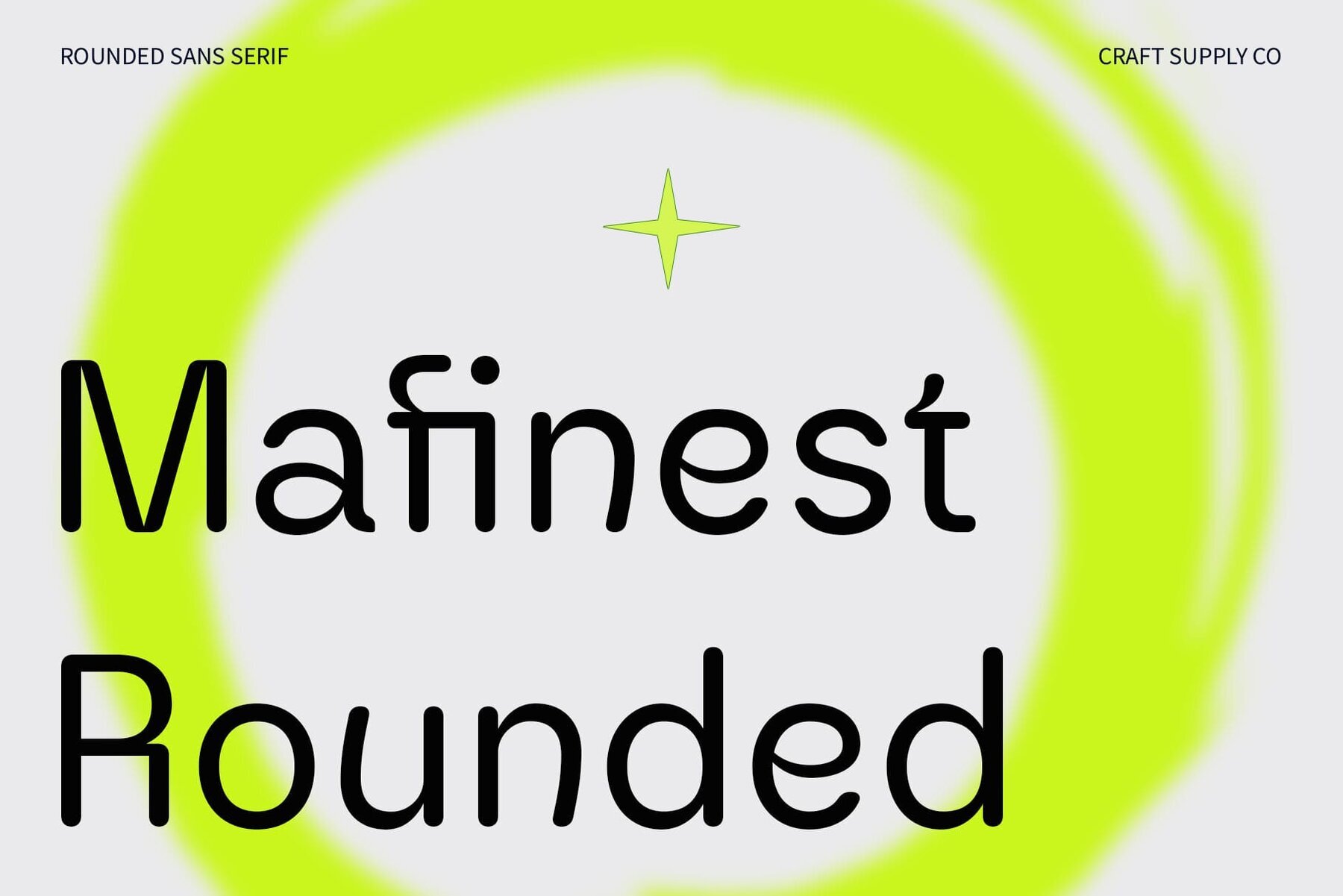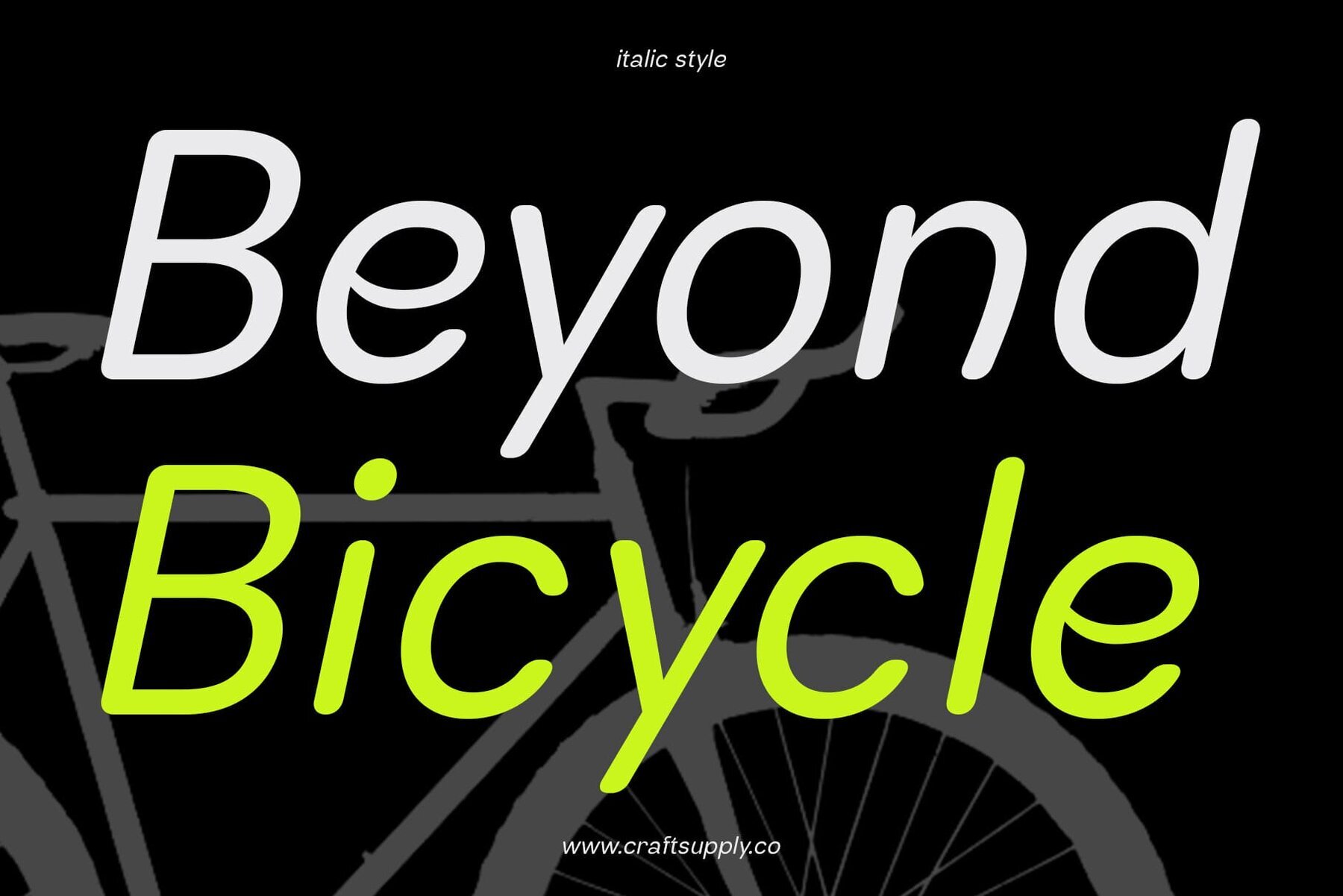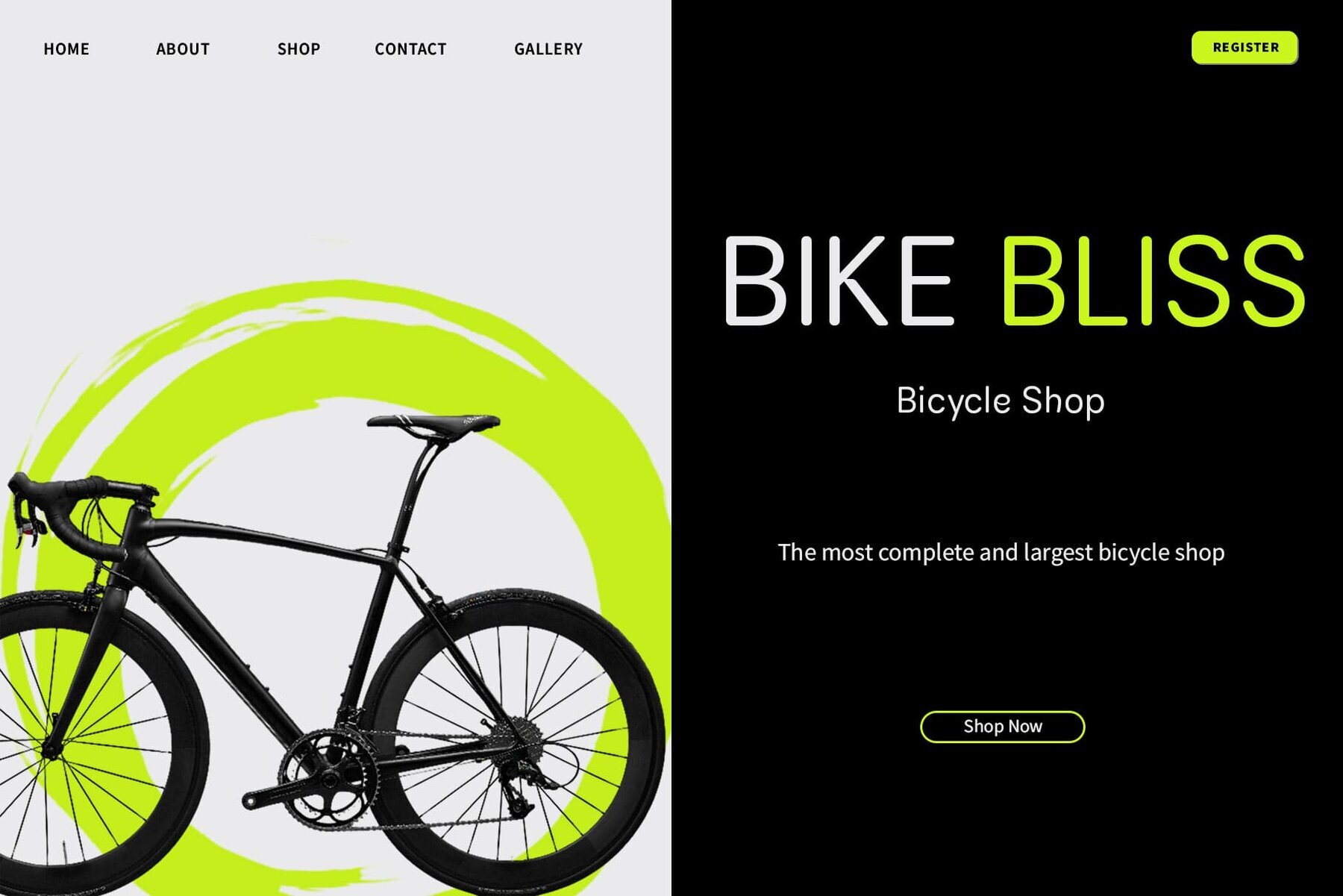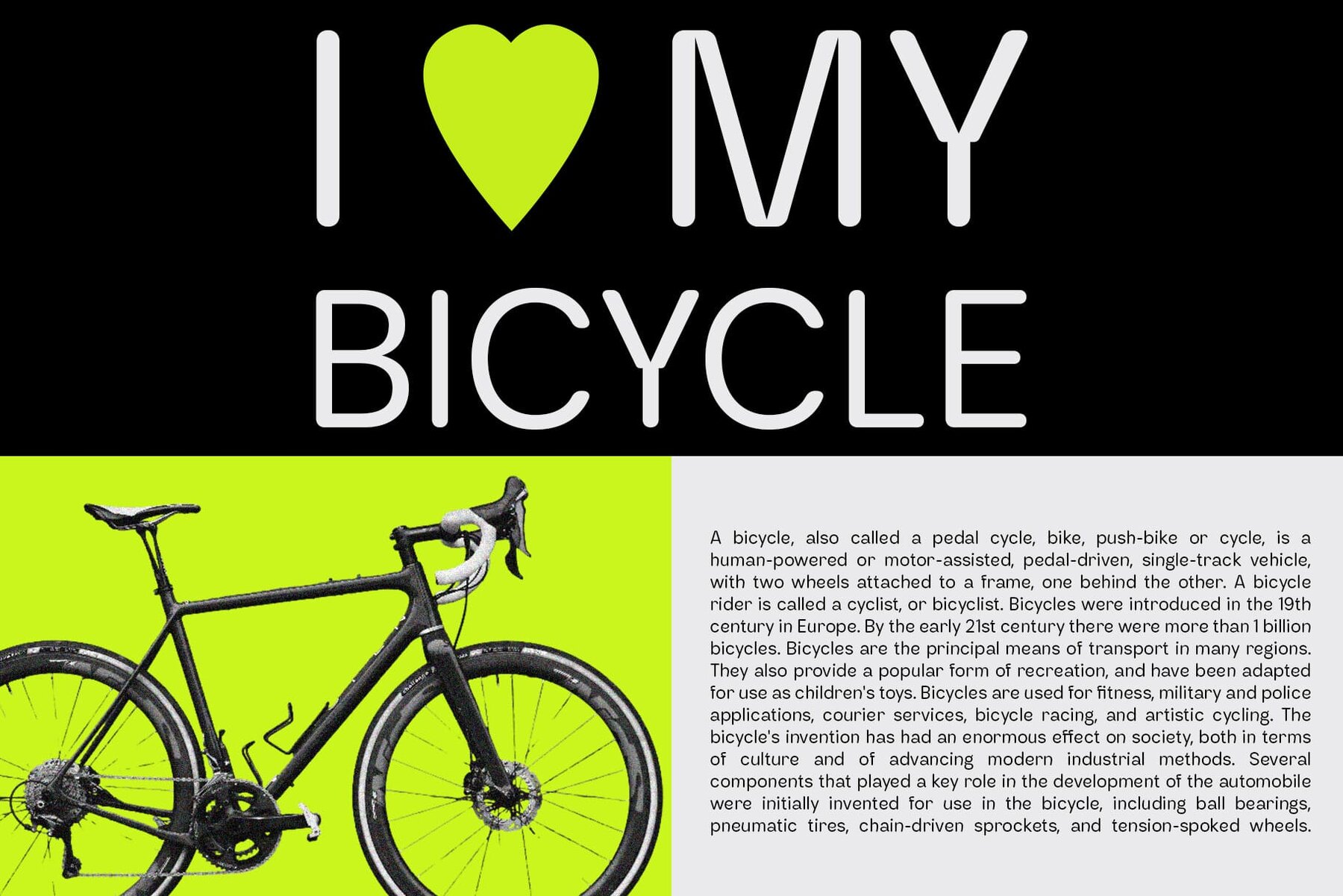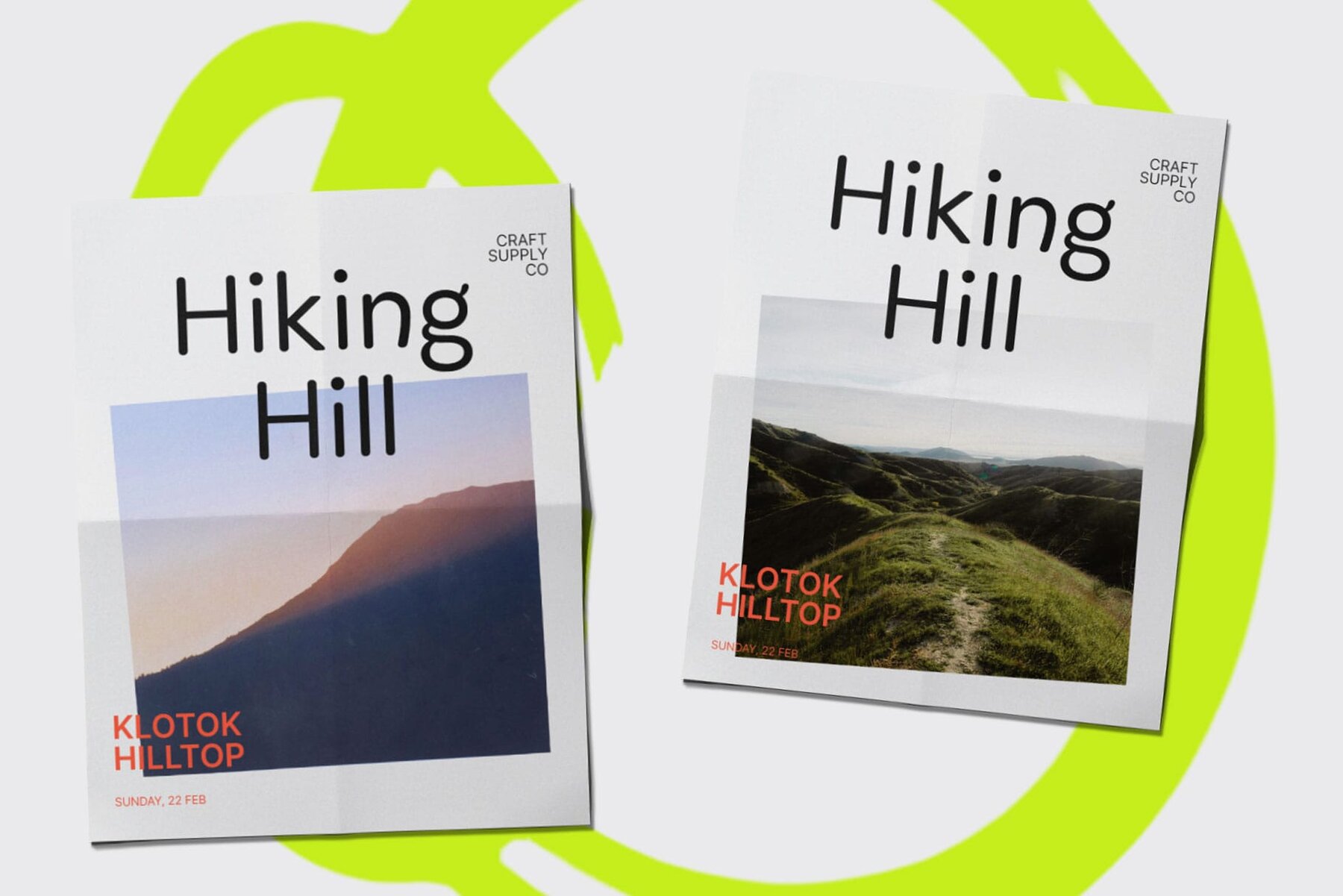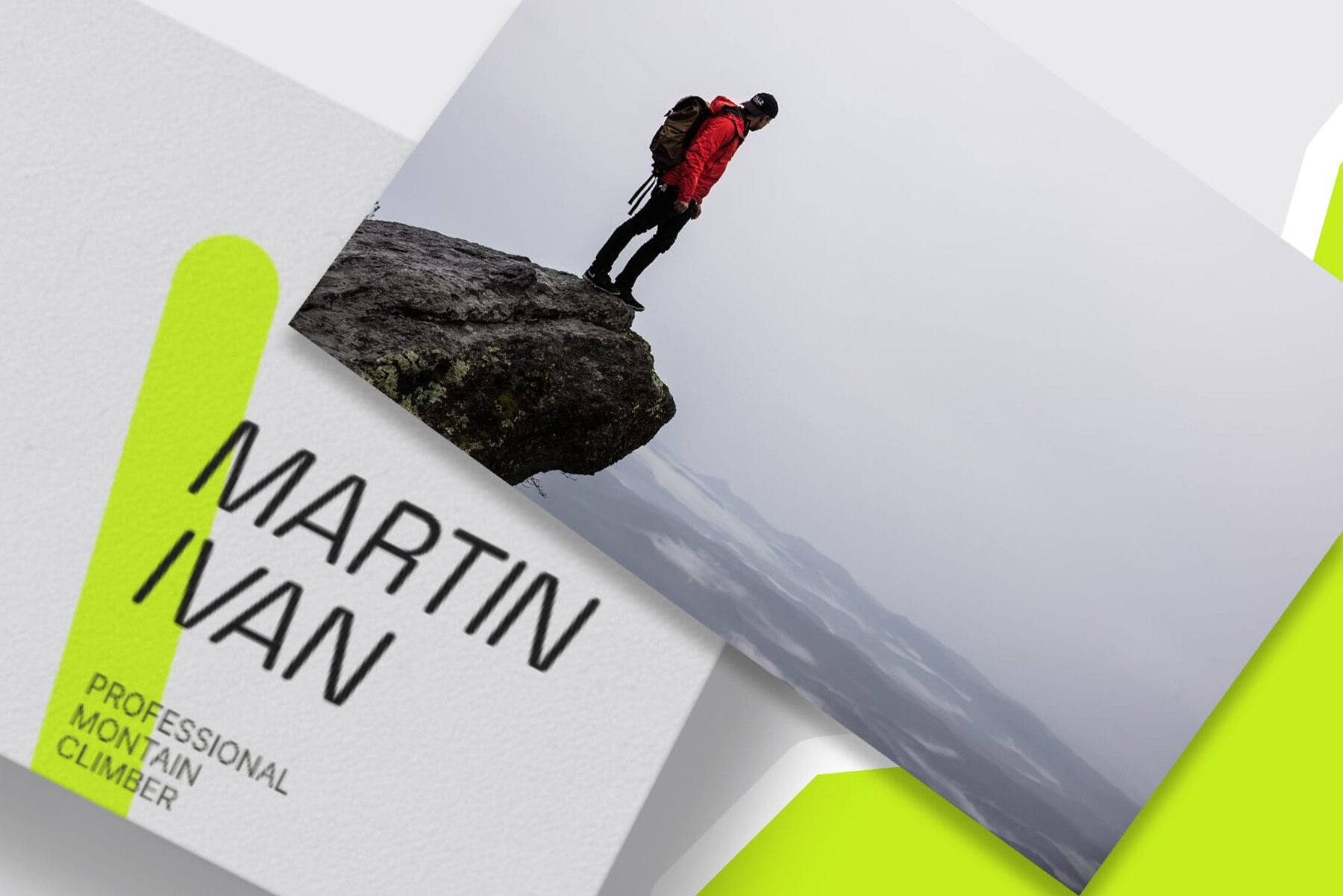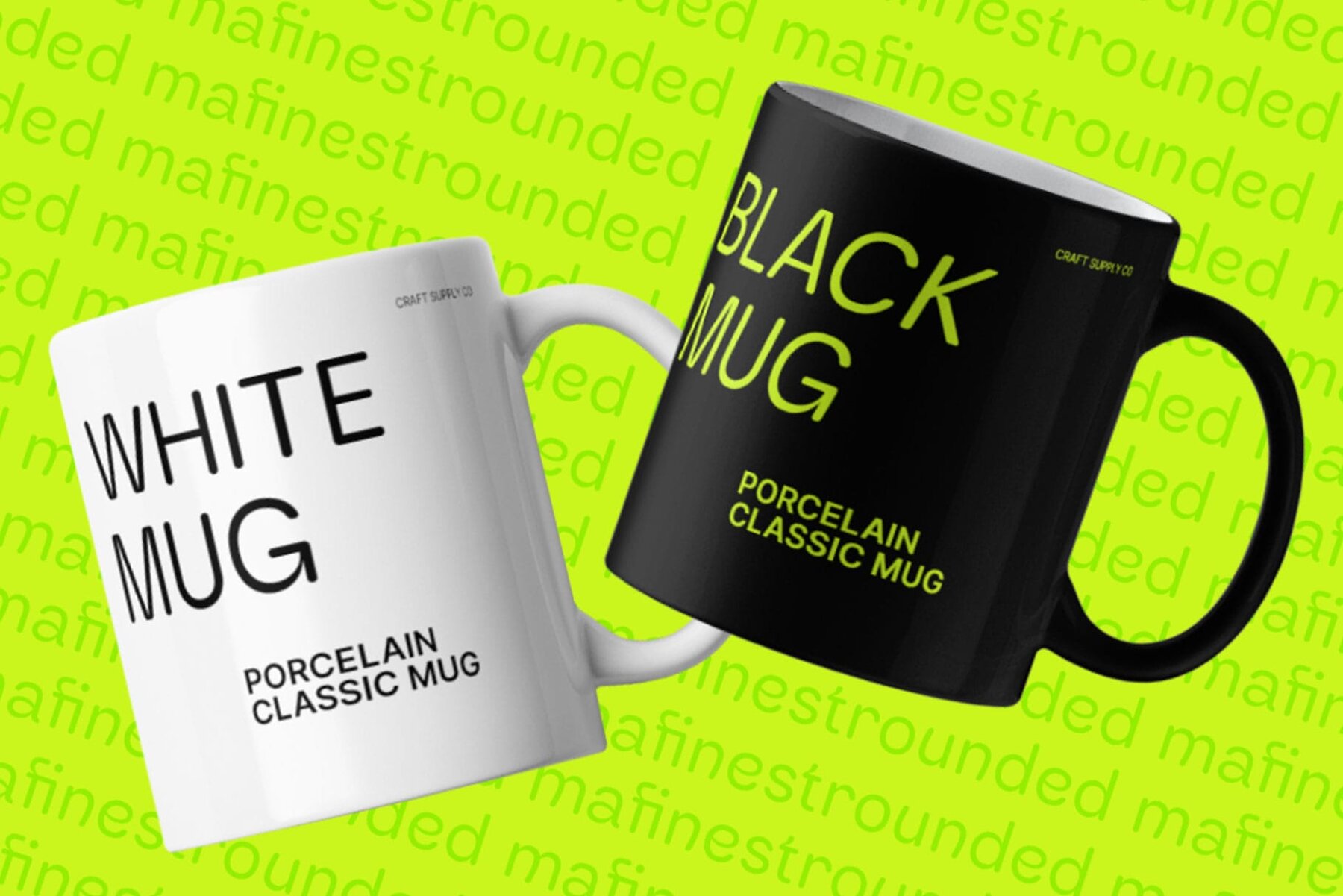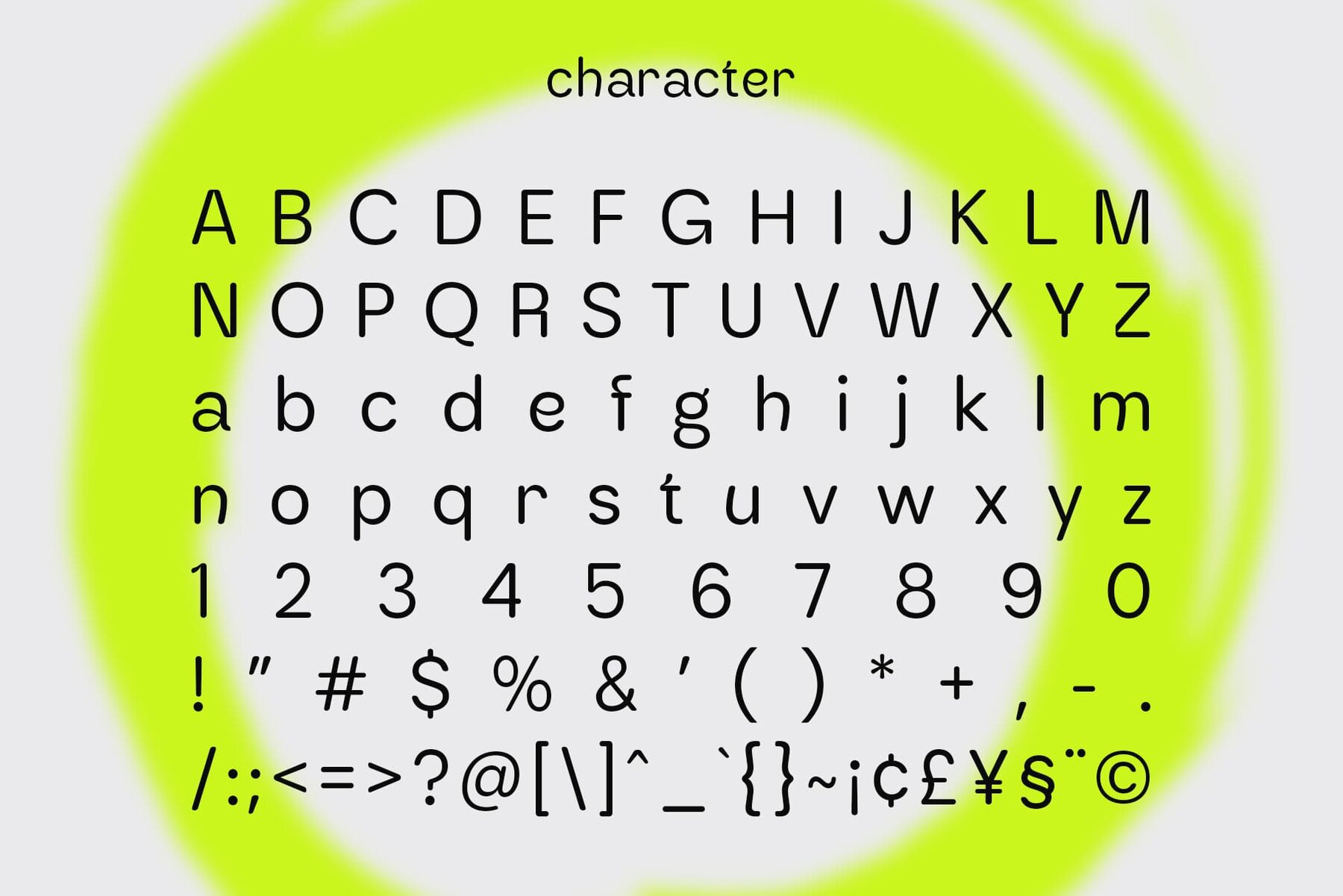
Mafinest Rounded Font
Mafinest Rounded encapsulates the essence of minimalist design with its low-contrast sans serif style. The subtle variation in stroke weight ensures a clean and understated aesthetic. This font's subtle contrast and minimalist design create maximum impact, making it suitable for a wide range of applications, from web design to branding and editorial layouts. Featuring rounded stem endings, Mafinest Rounded exudes a gentle and approachable vibe. These softened edges add a touch of warmth and friendliness to the otherwise geometric shapes. Drawing inspiration from grotesque typefaces, Mafinest Rounded adopts a contemporary yet timeless appearance, with geometric proportions and simplified letterforms contributing to its modern allure. Tailored for minimalist projects, this font excels where simplicity and clarity are paramount. Experience effortless readability and understated elegance in any design context. Mafinest Rounded is a versatile choice for designers seeking minimalist elegance with a modern twist. Its low-contrast, rounded features, and grotesque-inspired form make it ideal for diverse design applications. This typeface can be used without any specialized software. If you have any inquiries or need assistance, please feel free to contact us. We appreciate your support in enhancing your creative projects! Best regards, Craft Supply Co.Mafinest Rounded: Embracing Minimalist Elegance
Subtle Contrast, Maximum Impact
Rounded Stem Endings for Softness
Grotesque Form for Modernity
Perfect for Minimalist Projects
Minimalism Meets Modernity